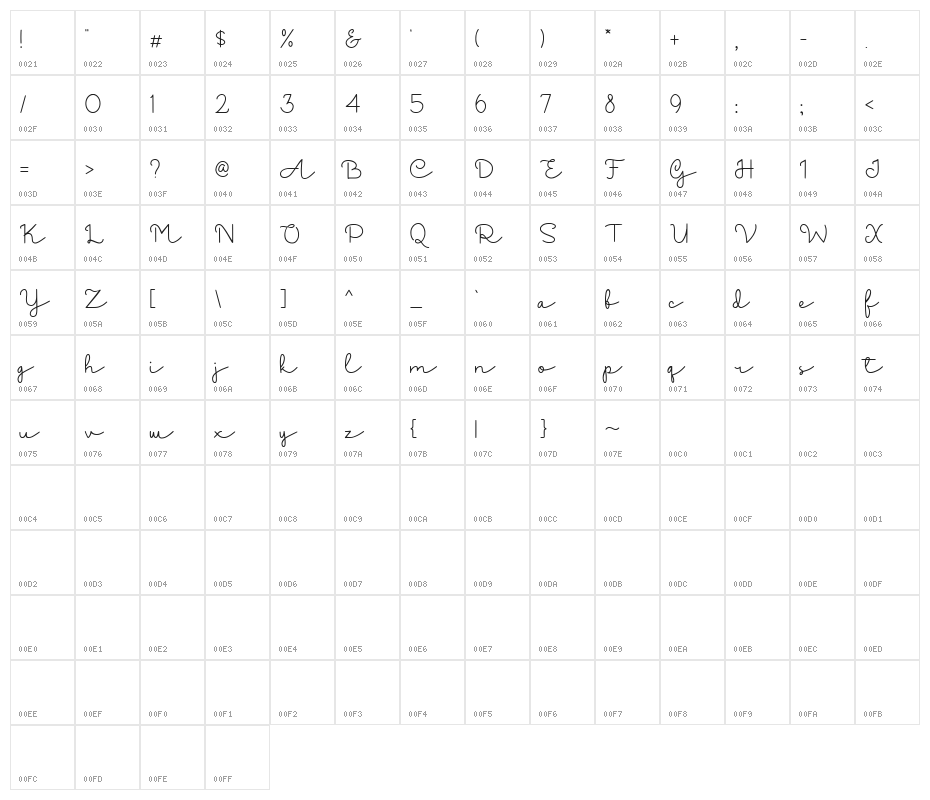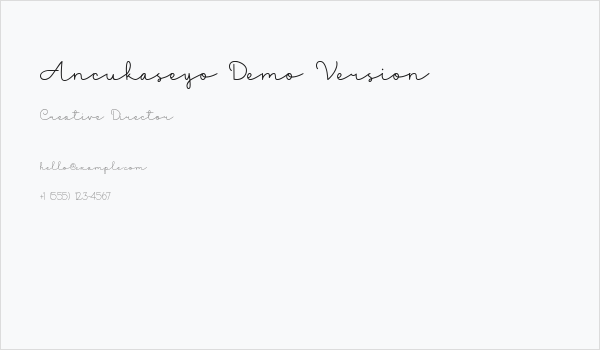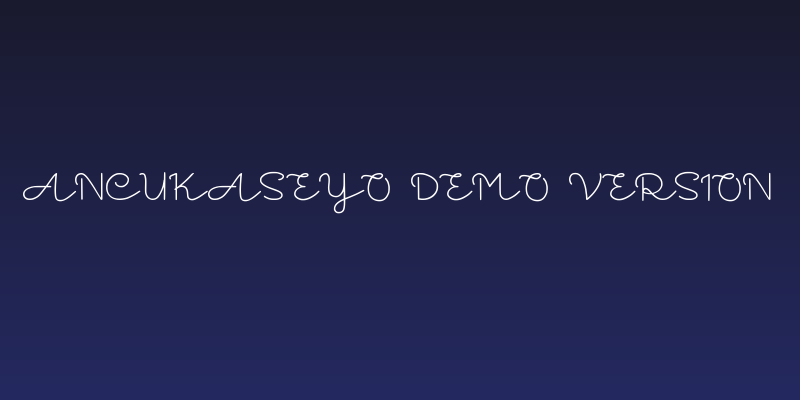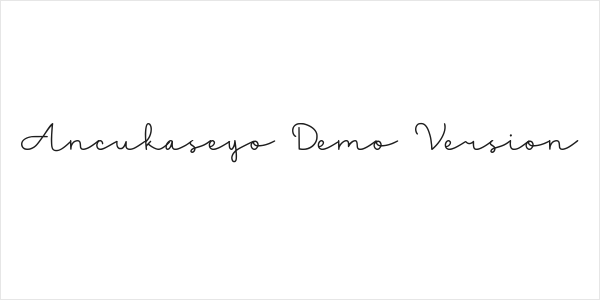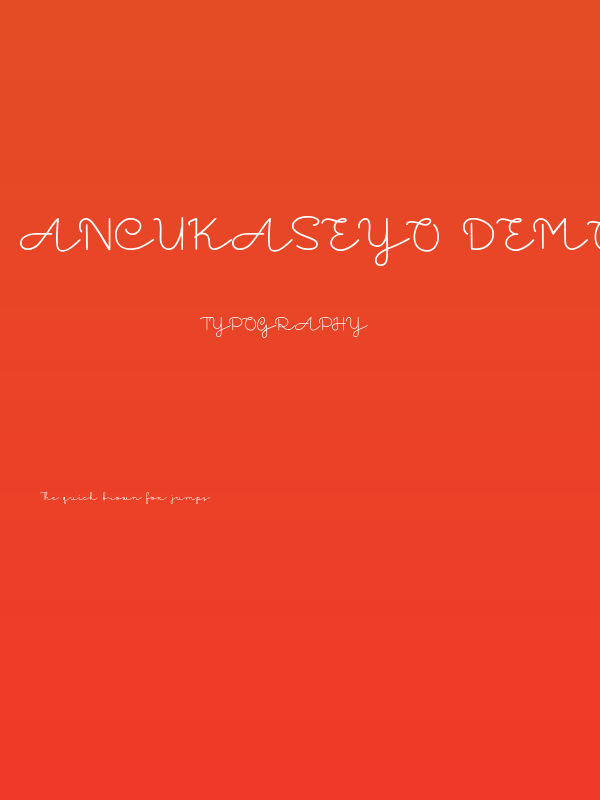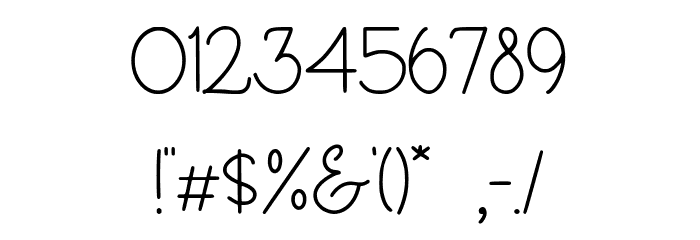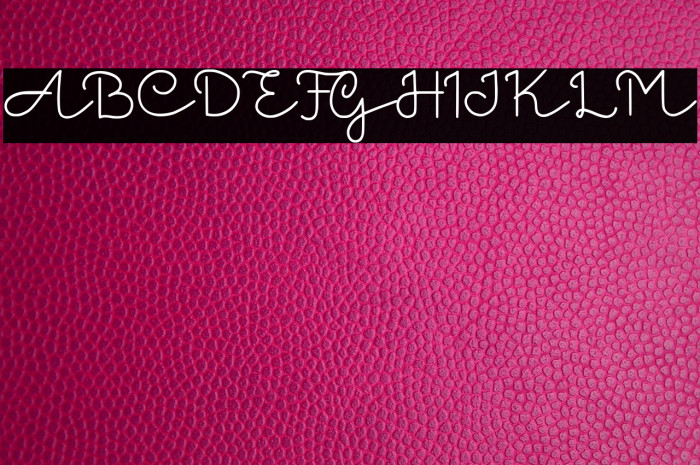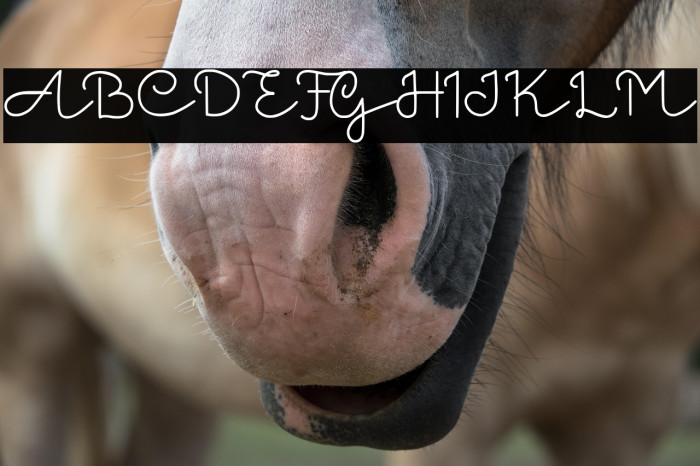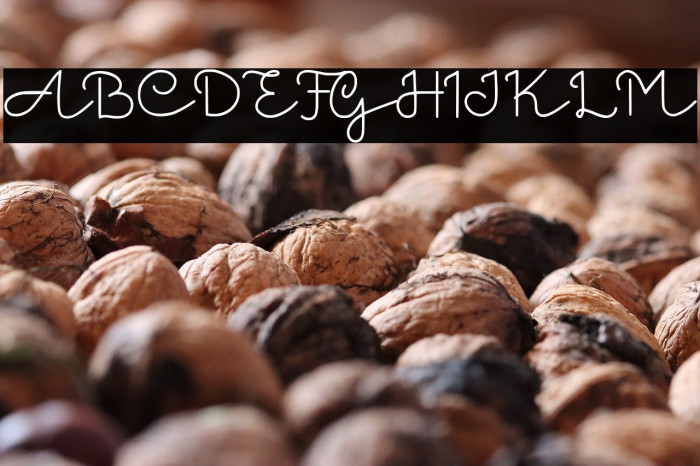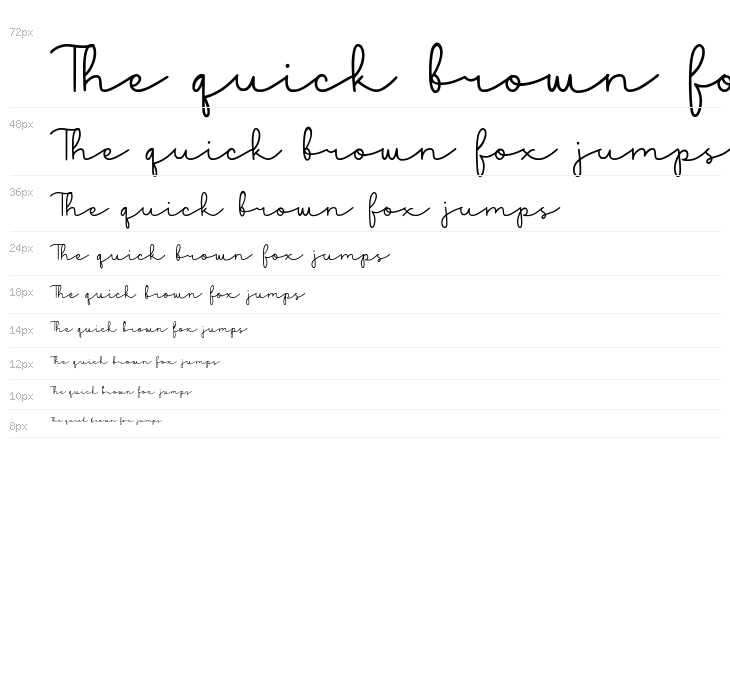
Ancukaseyo Demo Version Font
This font features a charming and fluid script style, characterized by its elegant, flowing lines and smooth curves. The uppercase letters are distinct with a slightly exaggerated flourish, while the lowercase letters maintain a consistent, connected appearance, reminiscent of cursive handwriting. The numerals are clear and legible, complementing the overall style with their rounded forms. Special characters are thoughtfully designed to match the script's aesthetic, ensuring a cohesive look across all text elements. The font's playful yet sophisticated nature makes it ideal for projects that require a personal touch, such as invitations, greeting cards, or branding materials. Its versatility allows it to be used in both formal and informal contexts, adding a touch of elegance and personality to any design.
| Overall Style | Elegant, Playful |
| Proposed Projects | Ideal for invitations, greeting cards, branding, and personal projects. |